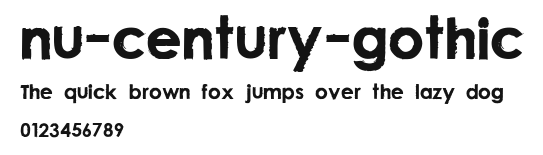
• Font Name: nu-century-gothic
• Full Font Name: nu-century-gothic Bold
• Designer: ere
• Manufacturer: ere
About nu-century-gothic.ttf
nu-century-gothic.ttf is a modern, elegant sans-serif font designed for ultimate readability and visual harmony. Perfect for branding, headlines, web design, and print materials.